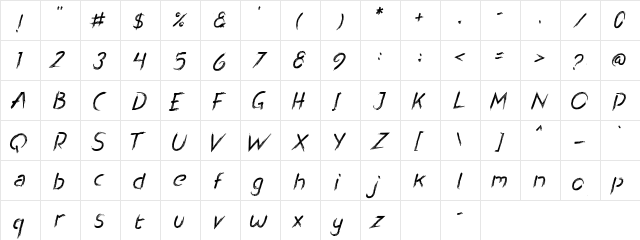
North Djakarta Regular
| Designer | Jadatype |
Design Context for North Djakarta Typeface
North Djakarta is a composed and adaptable typeface that performs quietly and consistently across a wide range of design contexts.